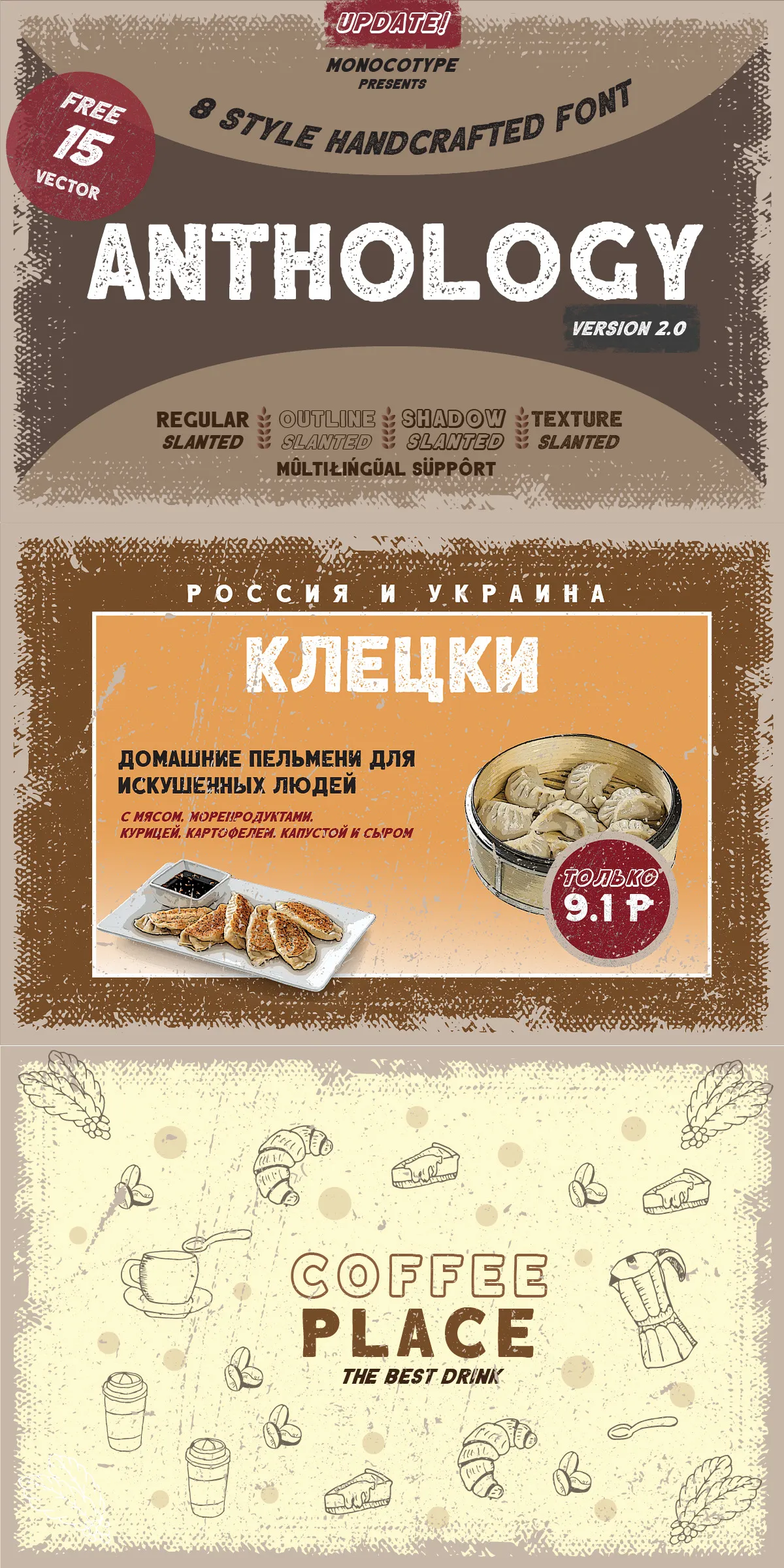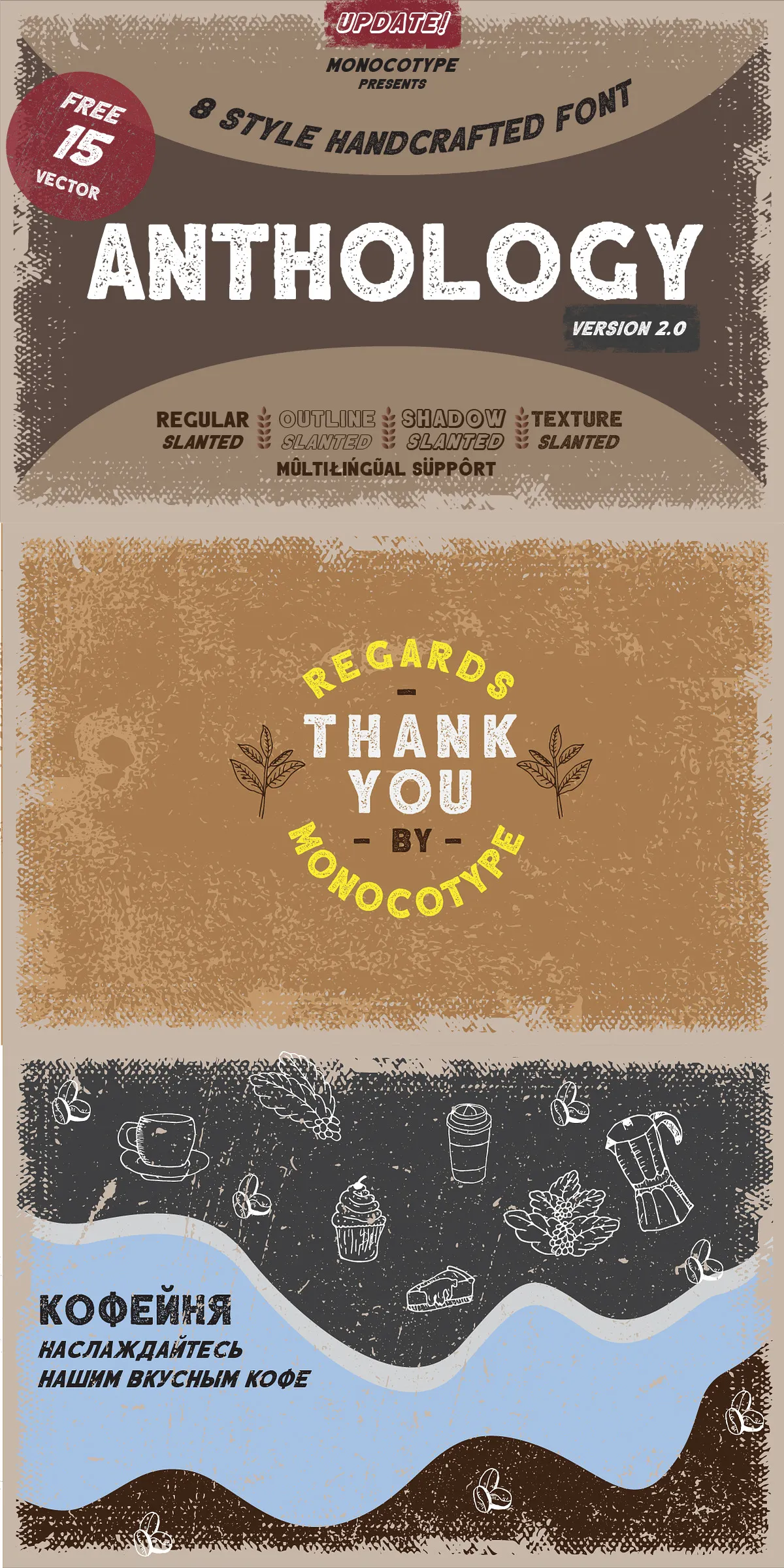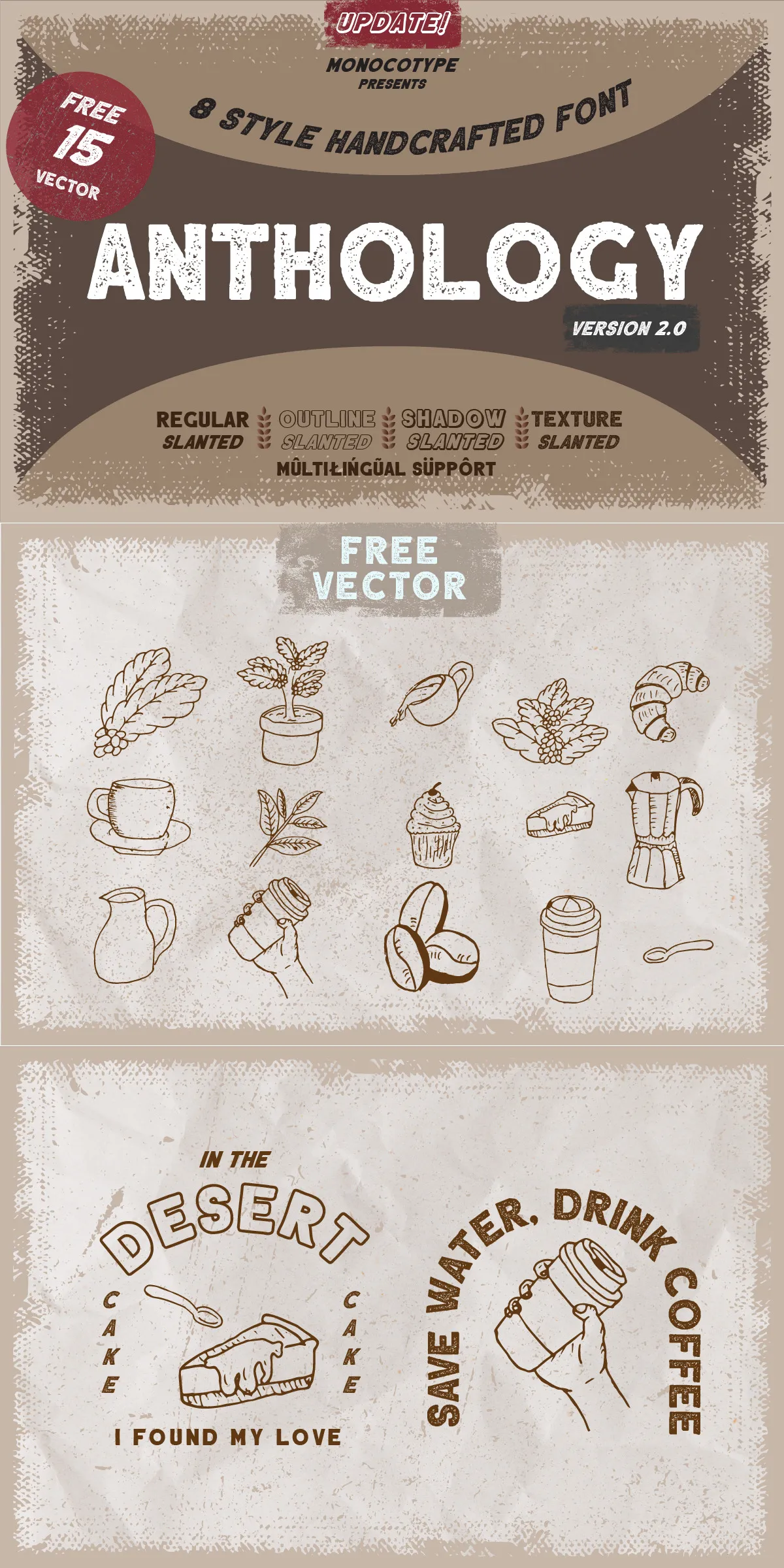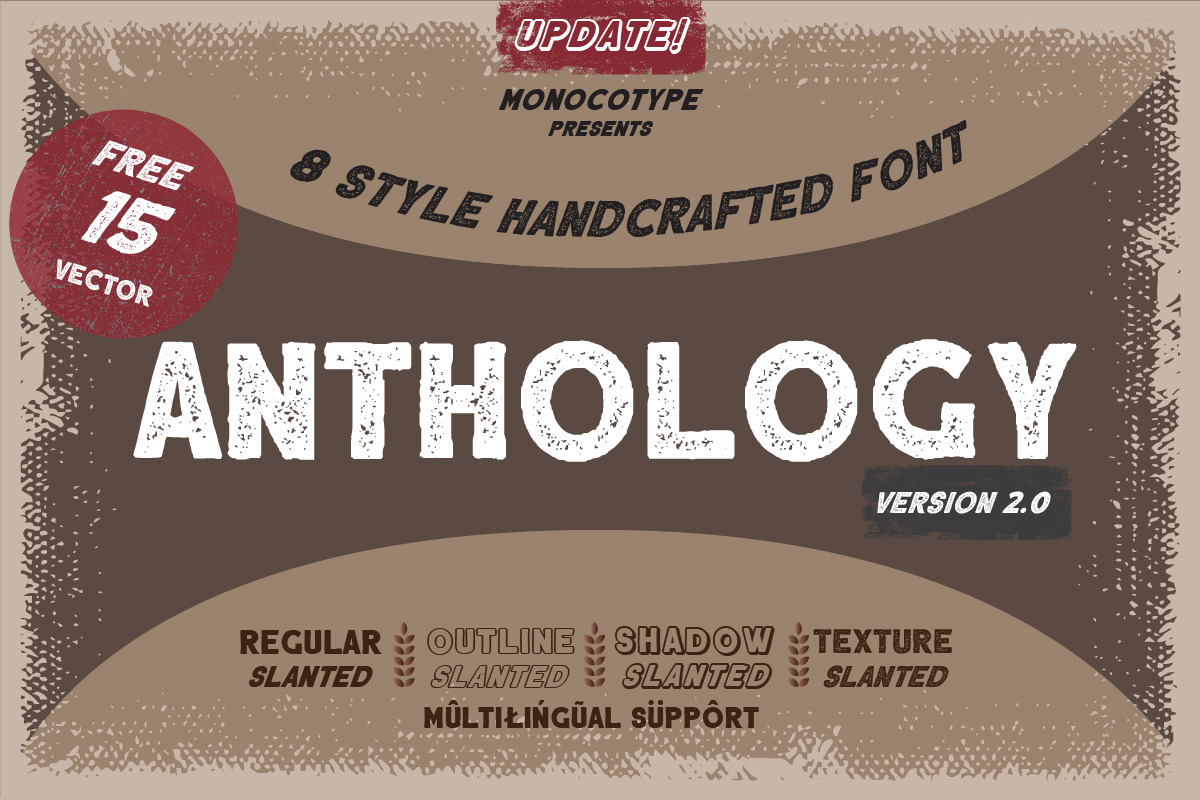
UPDATE VERSION 2 (May 2022)
Add Cyrillic Support
Better Spacing
Add Variable Font Support
Add new 6 font style; Regular, Slanted, Outline, Outline Slanted, Shadowed Slanted.
Anthology is a handcrafted sans serif font that have 6 font style; Regular, Slanted, Outline, Outline Slanted, Shadowed Slanted. Each styles is suitable each other that can make your project look awesome. This product also contains Coffee bonus vector that can be use for your project or printed for your purpose